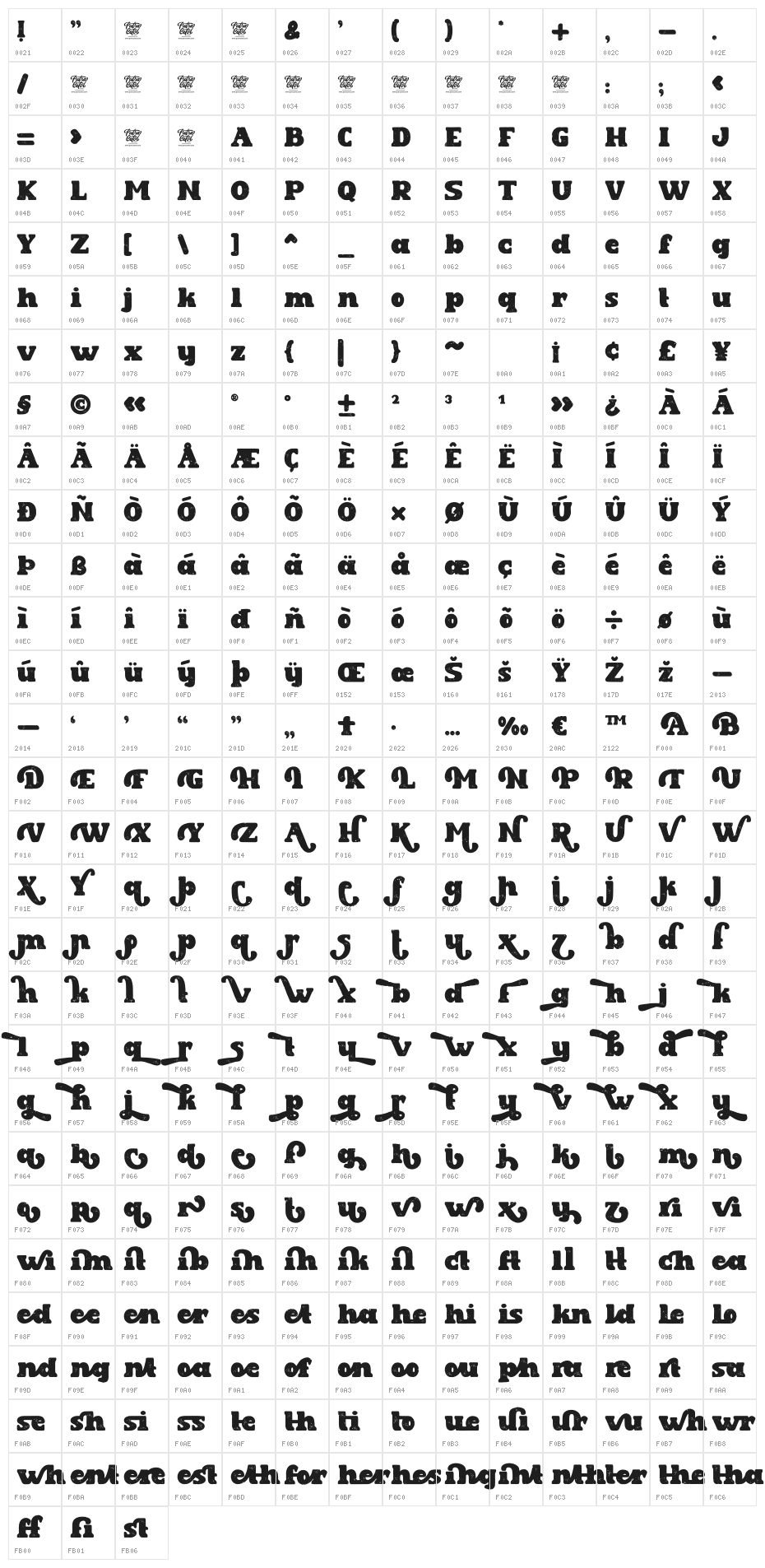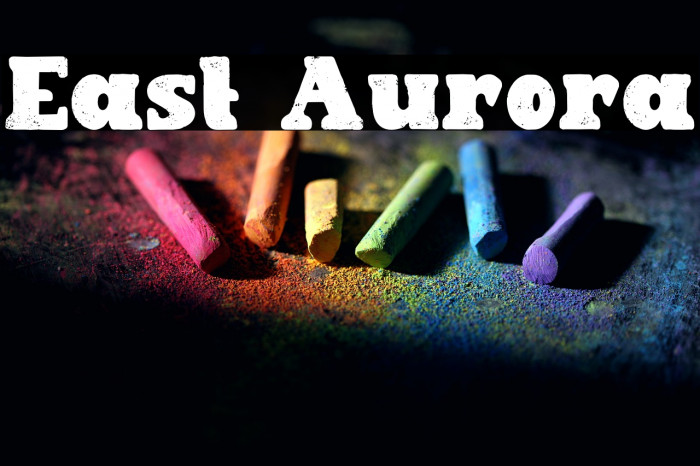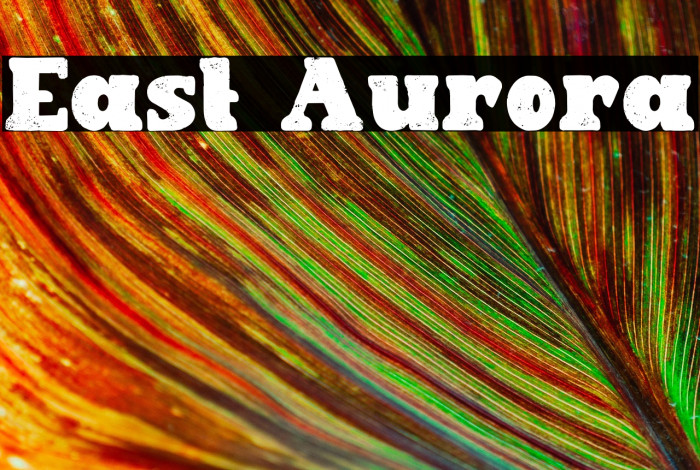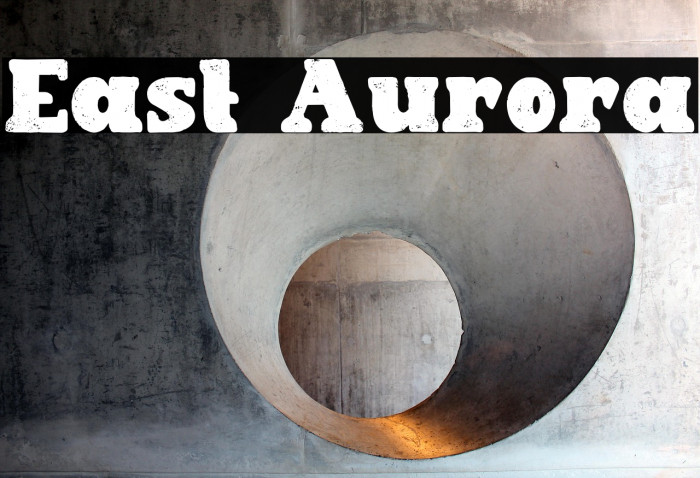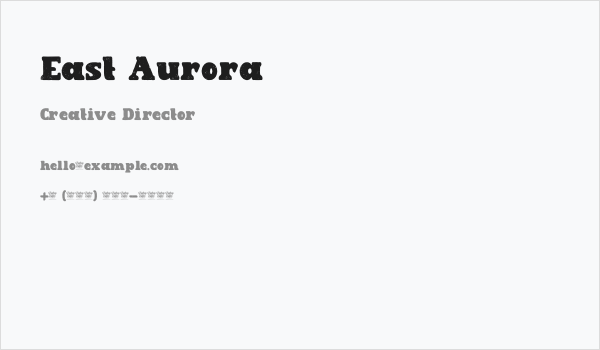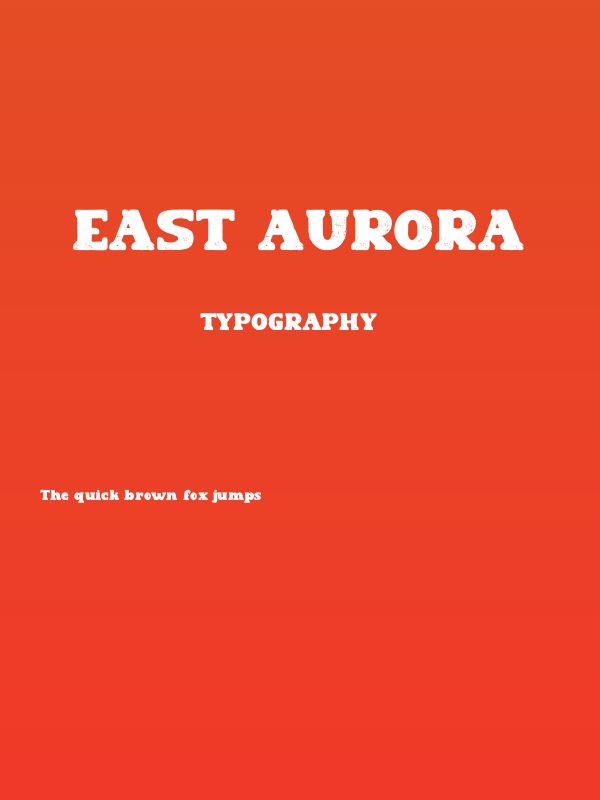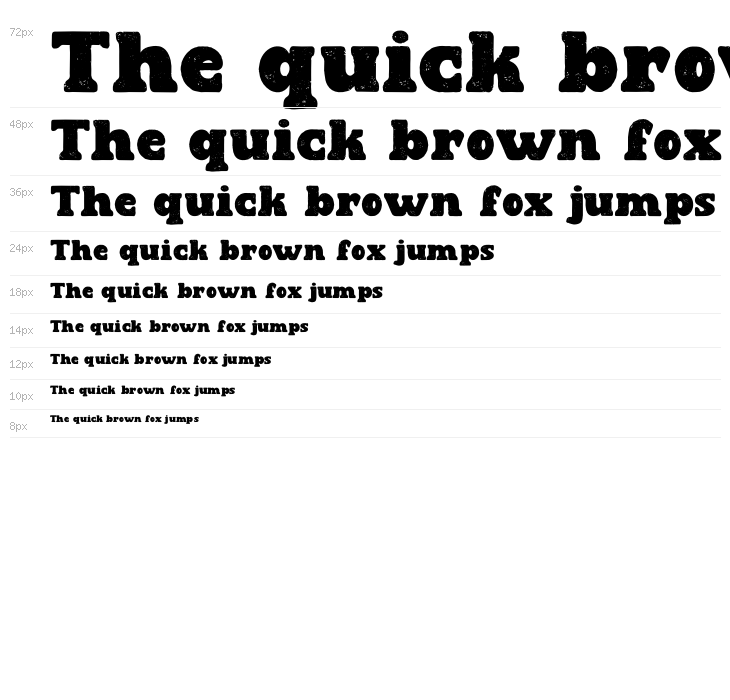
East Aurora Font
East Aurora Description
This font exhibits a bold and robust character with a distressed texture that gives it a vintage and rustic appeal. The uppercase and lowercase letters are uniformly bold, with rounded edges that soften the overall appearance. The numbers and special characters maintain the same distressed style, ensuring consistency across all glyphs. The font's unique texture adds a handcrafted feel, making it suitable for designs that require a touch of authenticity and nostalgia. Its boldness ensures visibility and impact, making it ideal for standout text.
| Proposed Projects | Ideal for vintage-themed posters, rustic branding, logos, and packaging designs that require a bold, standout typeface. |